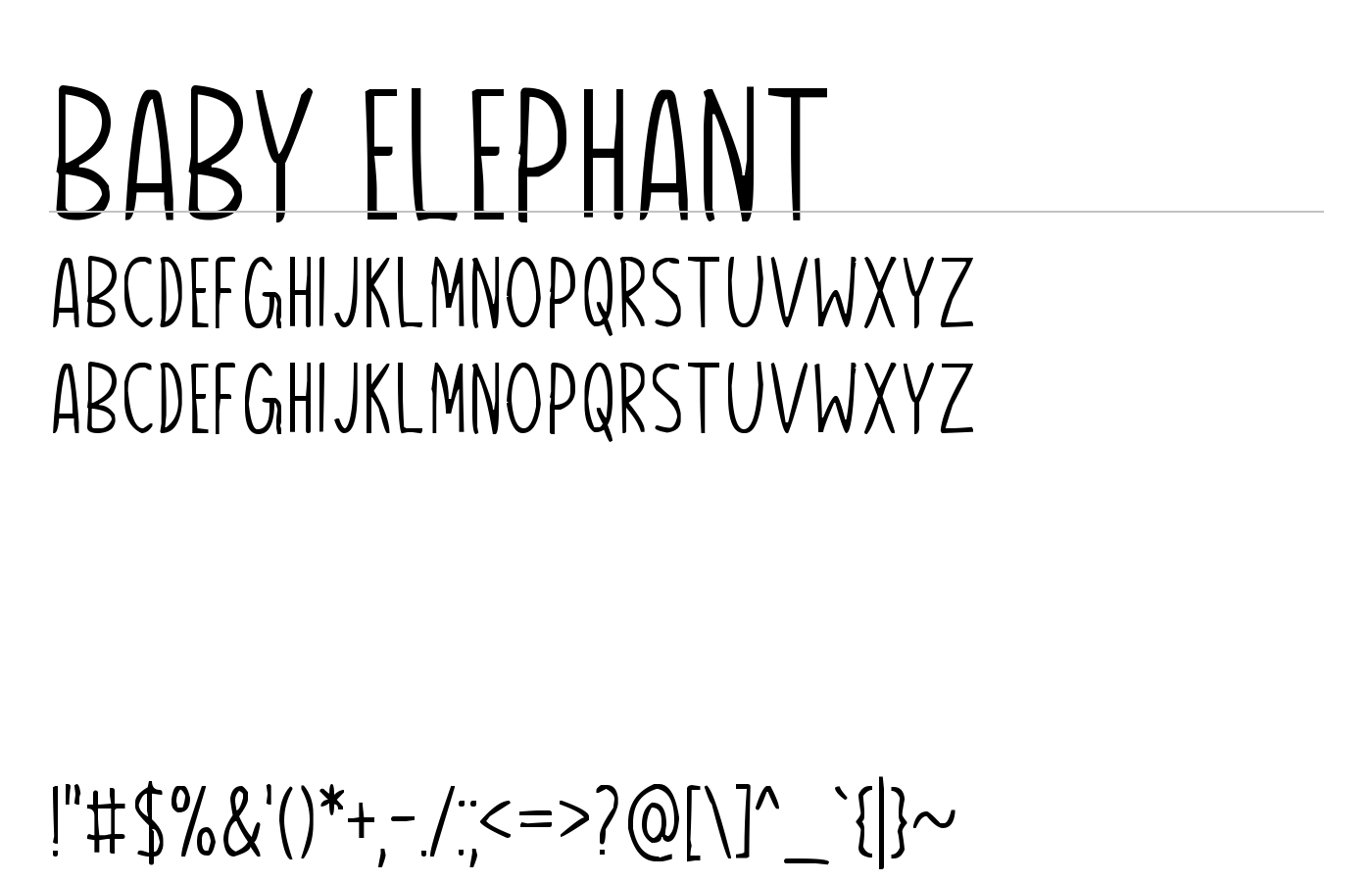
Baby Elephant is a playful, tall, and narrow sans-serif font with a hand-drawn, childlike feel that combines thin, consistent strokes with slightly irregular shapes for a whimsical look. Its quirky character forms and casual style make it ideal for children's books, informal branding, and any design seeking a fun, approachable vibe. This font works best for headlines, logos, and creative projects where personality and lightheartedness are key.
Baby Elephant Font
About Baby Elephant Font